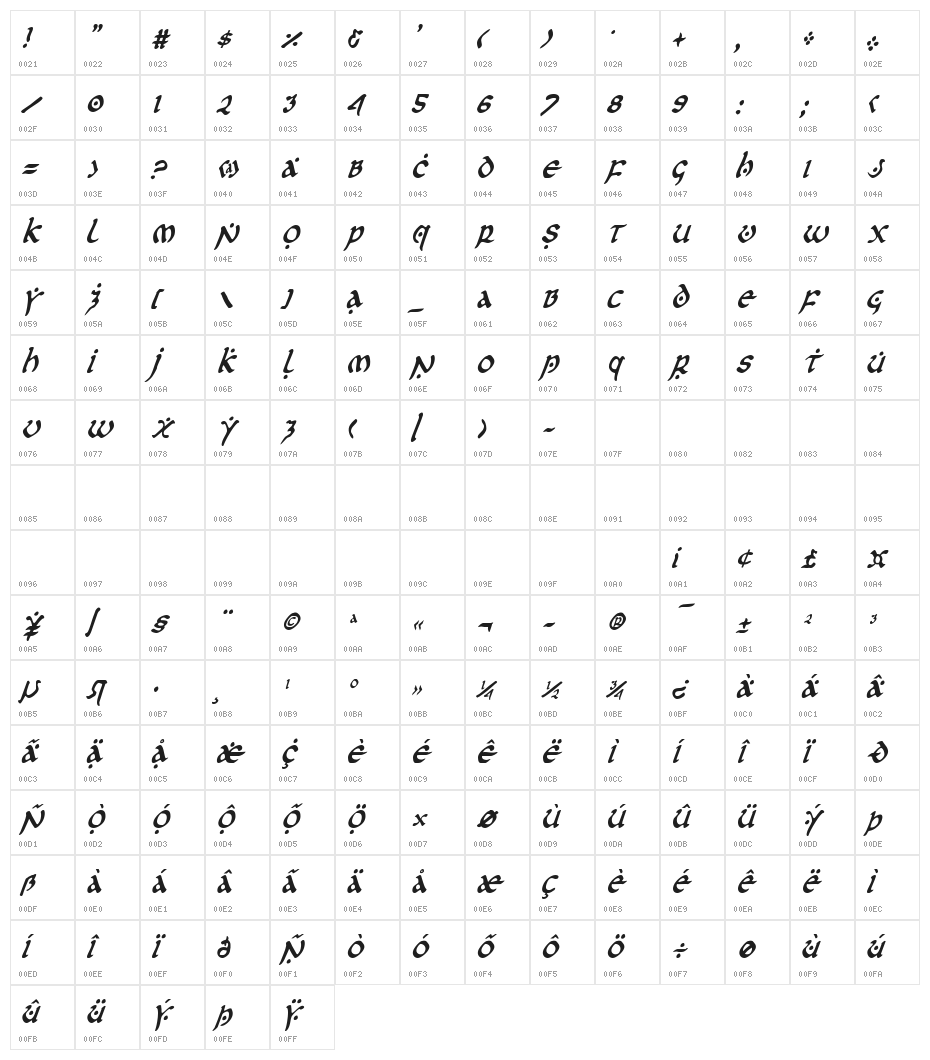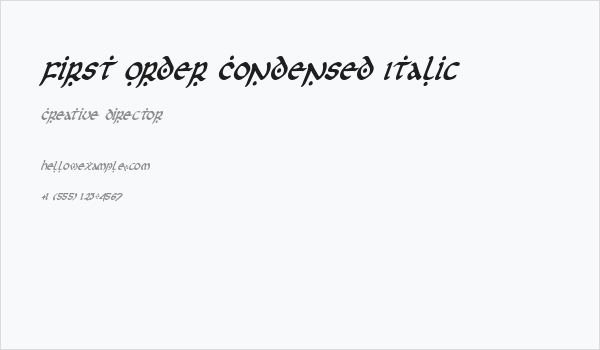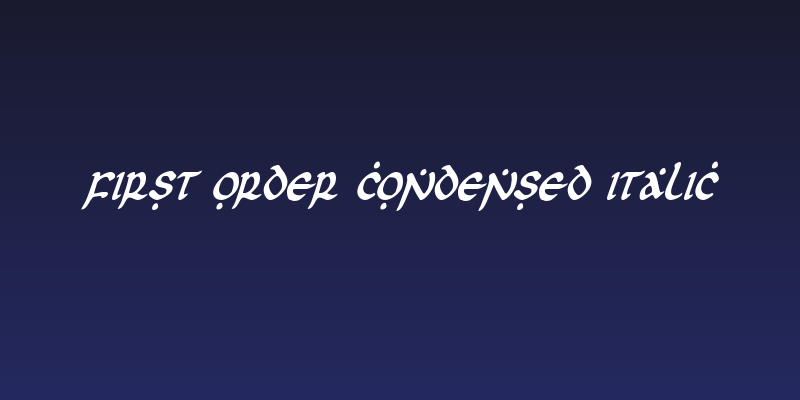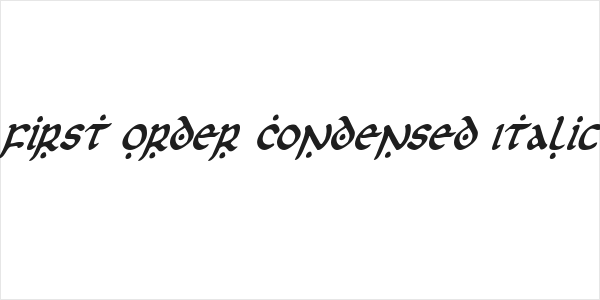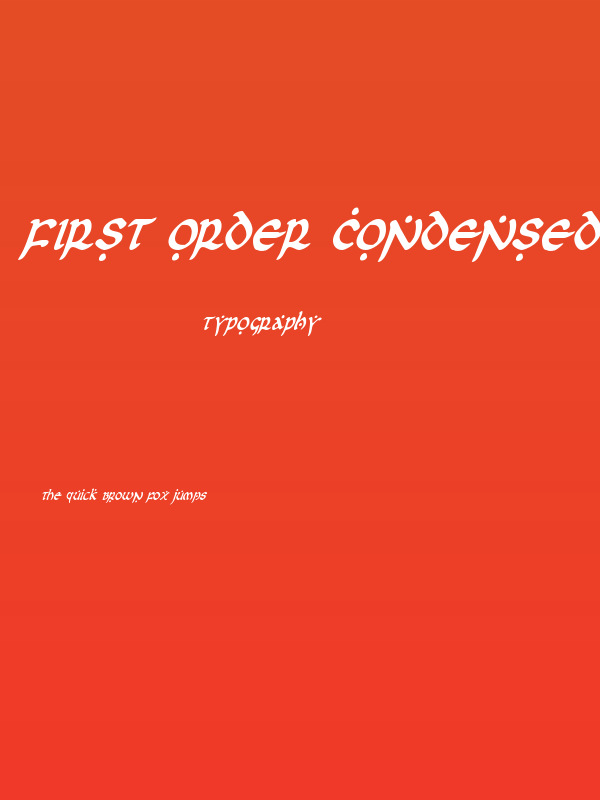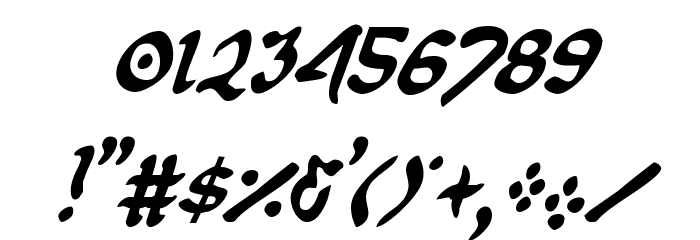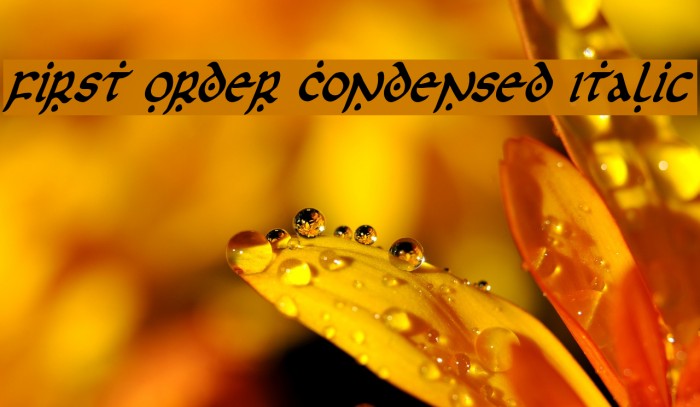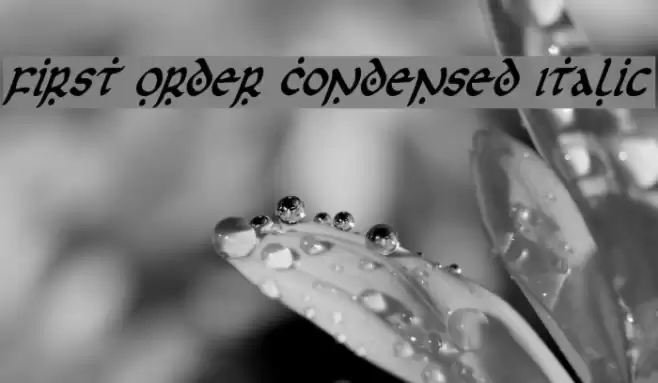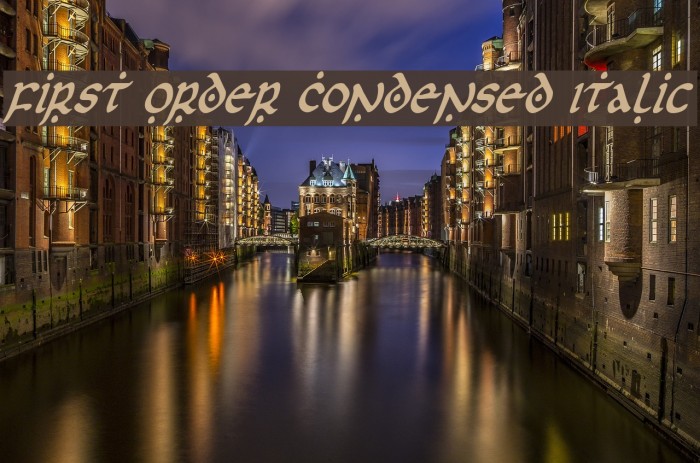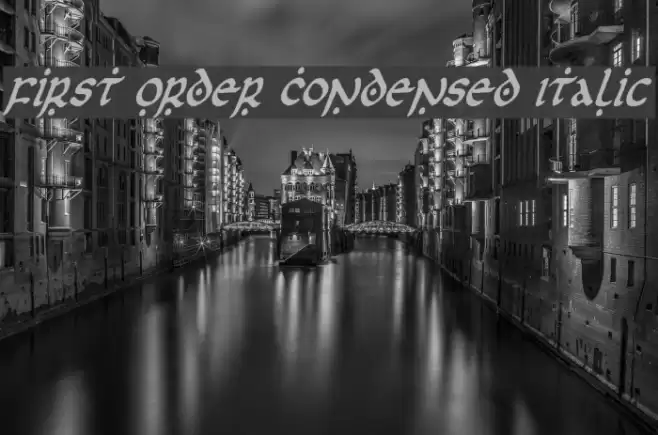
First Order Condensed Italic Font
First Order Condensed Italic Description
This font features a dynamic and flowing style with a distinct italic slant, giving it a sense of movement and elegance. The characters are condensed, allowing for efficient use of space while maintaining readability. The strokes are bold and expressive, with a moderate contrast between thick and thin lines, adding to its visual appeal. The overall design is reminiscent of calligraphic handwriting, making it suitable for creative and artistic projects. The unique character shapes and decorative elements make it stand out, providing a stylish and sophisticated look.
| Proposed Projects | Ideal for creative projects such as invitations, posters, branding, and artistic designs. |